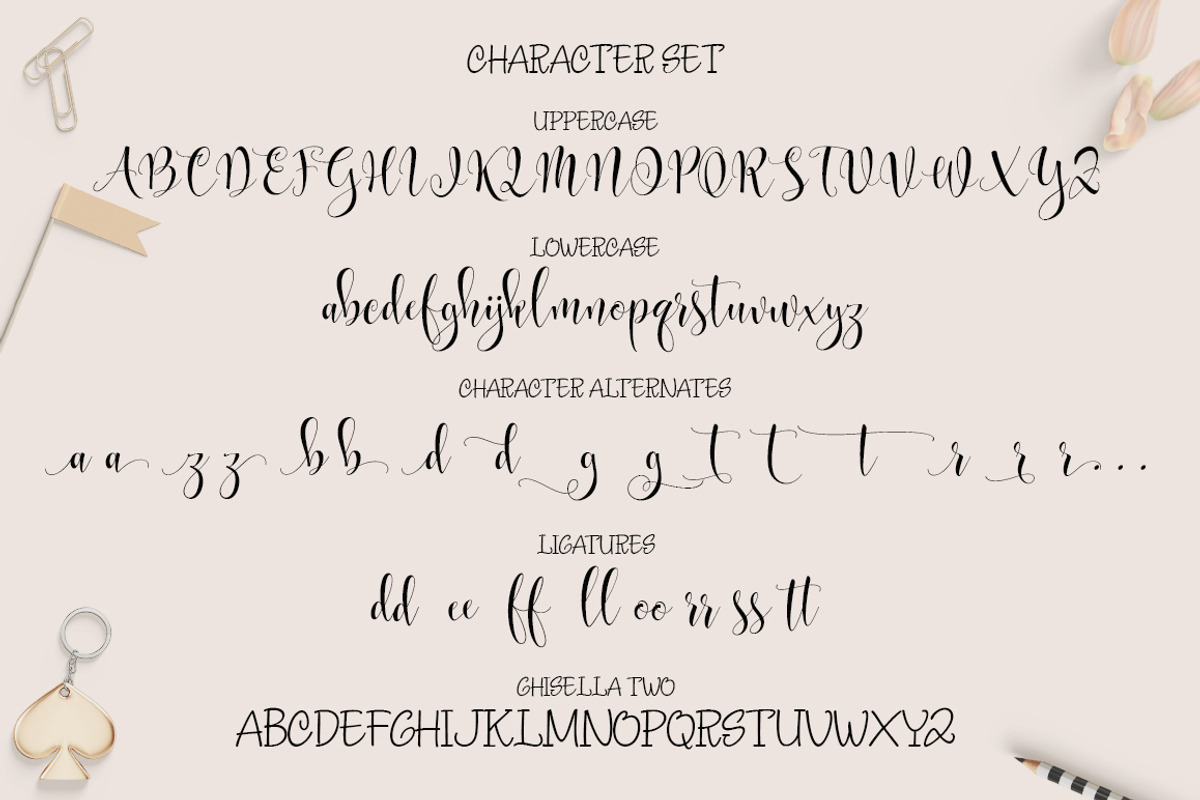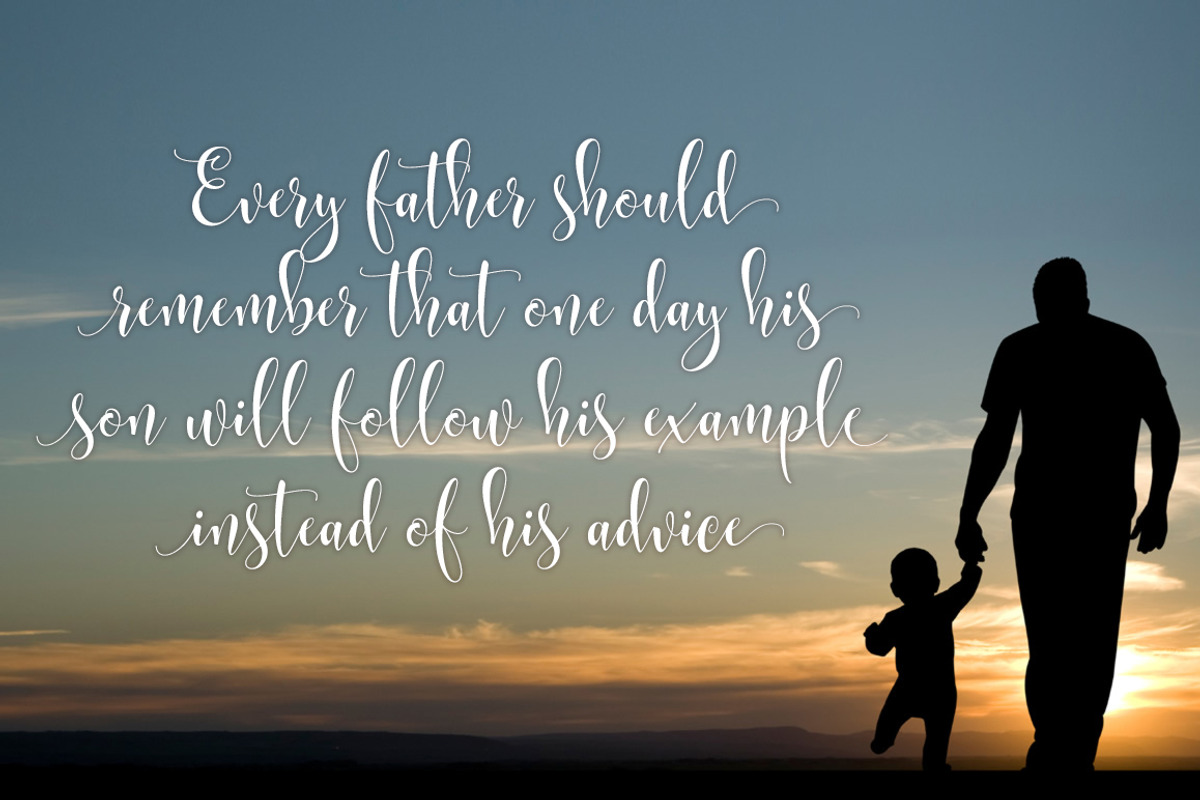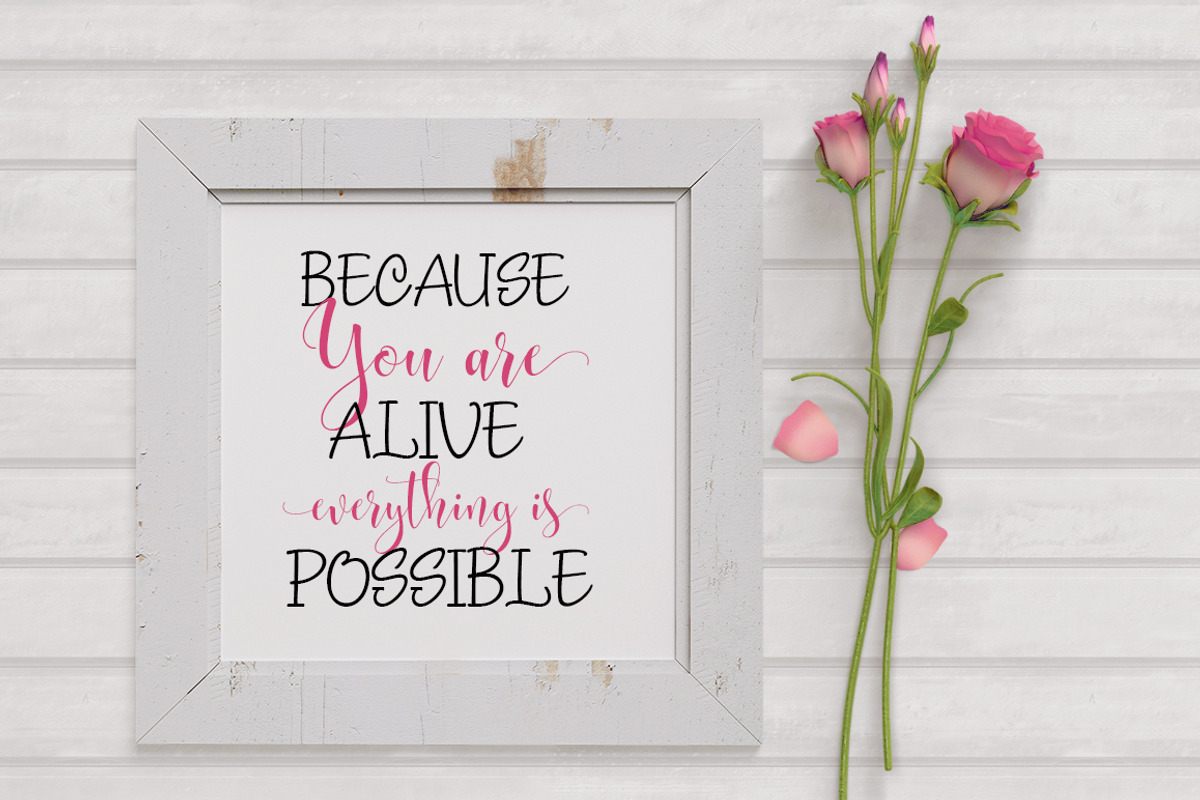
Ghisella
Ghisella is a interconnected font with beautiful welded letters. The font contains beautiful smooth and elegant letters and is great for creating cards such as wedding invitations and birthday cards but also can be used to create beautiful signs and decorate various items.
This dynamic font comes with a sister font: Ghisella Two. Ghisella Two is a basic font with huge letters.
- Features Basic Latin A-Z and a-z Numbers Symbols.